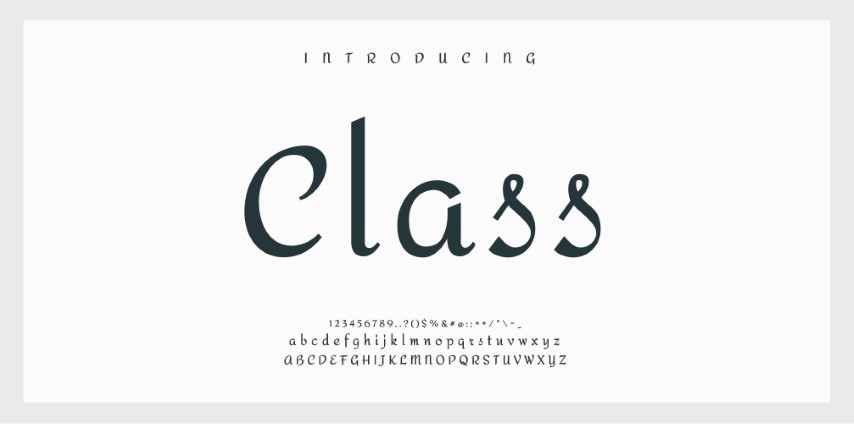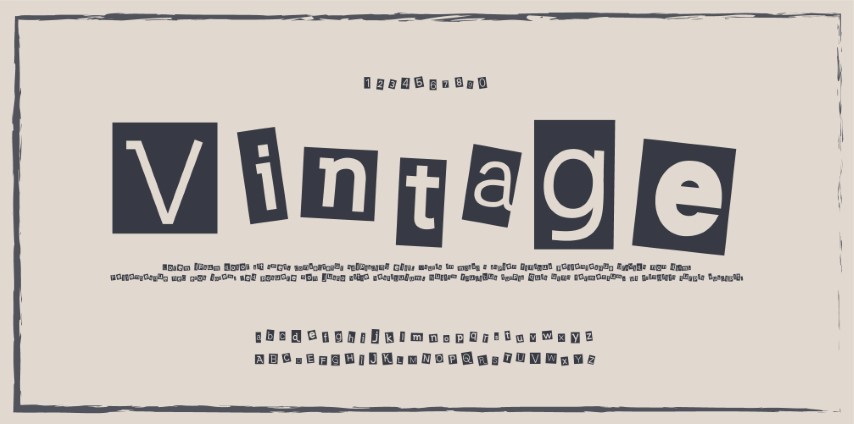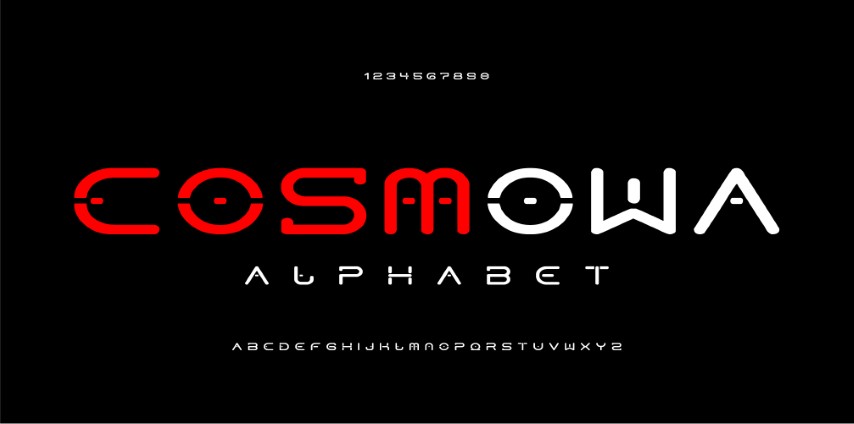
Abstract minimal modern alphabet fonts.
Abstract minimal modern alphabet fonts. Typography minimalist urban digital fashion future creative logo font. Creative vector illustration font.